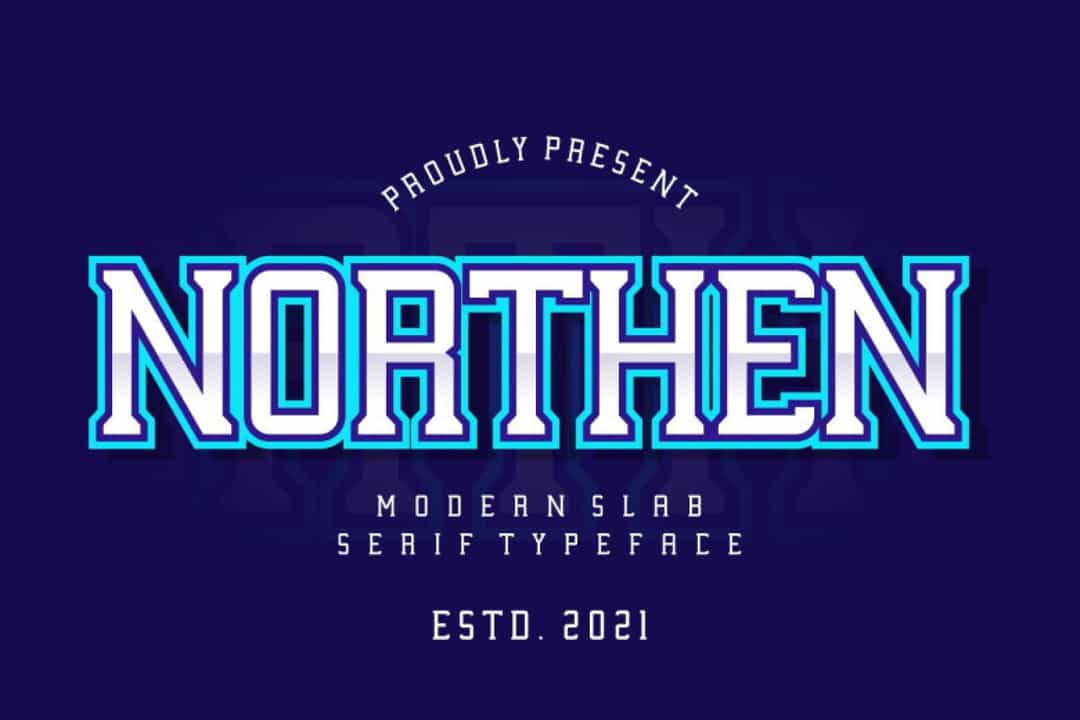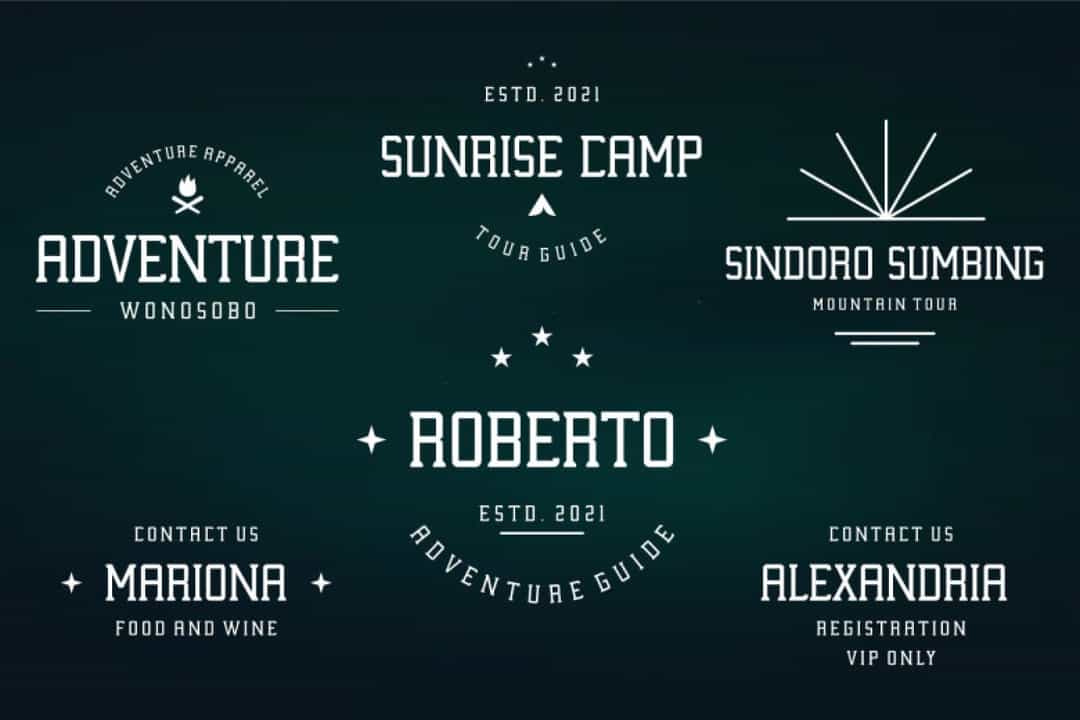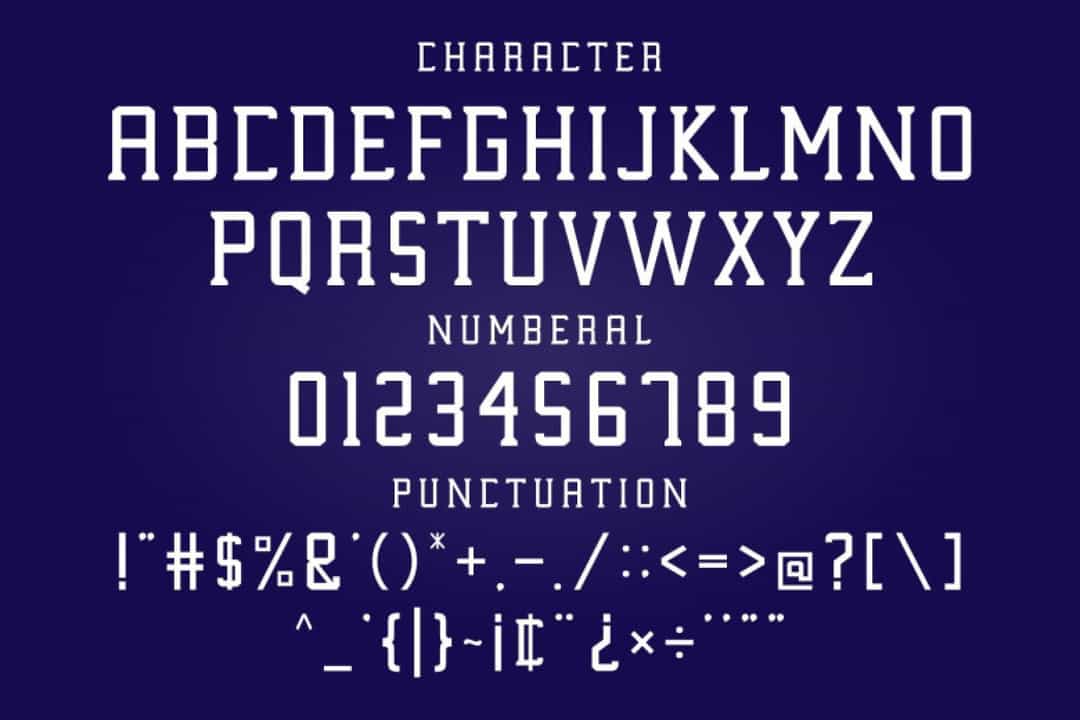
Northen is an impressive slab serif font designed to make your design stand out. Expertly created to add visual impact, Northen looks stunning across various concepts.